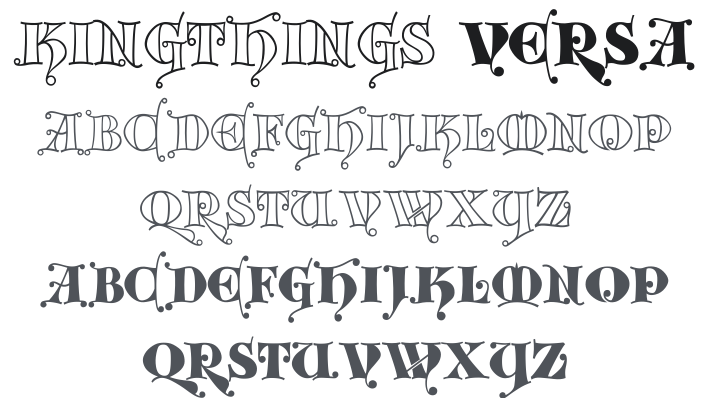
Kingthings Versalis Font
About Kingthings Versalis
Kingthings Versalis - Both contained in the same font file, this font only contains capitals as they are supposed to be Versals - i.e. they were used in illuminated manuscripts for the capital letters starting verses. They work well with my calligraphic fonts. I made both a solid and an outline form because I can use one to 'fill' the other when overlaid.